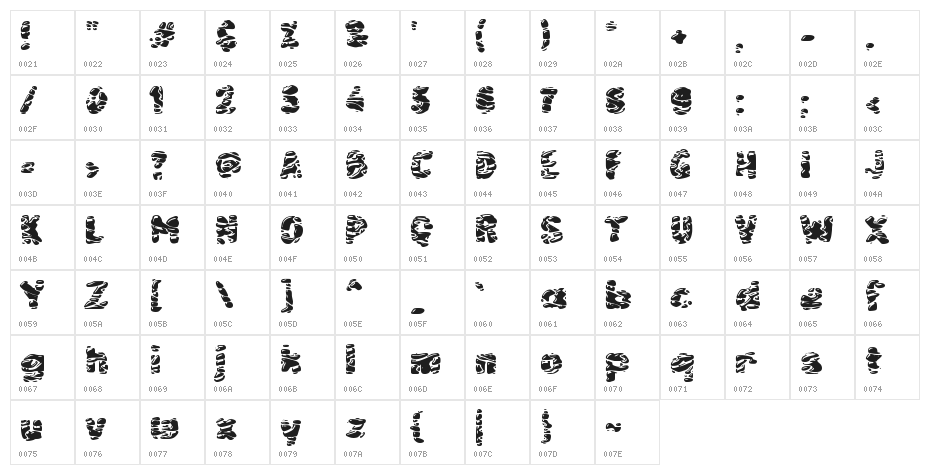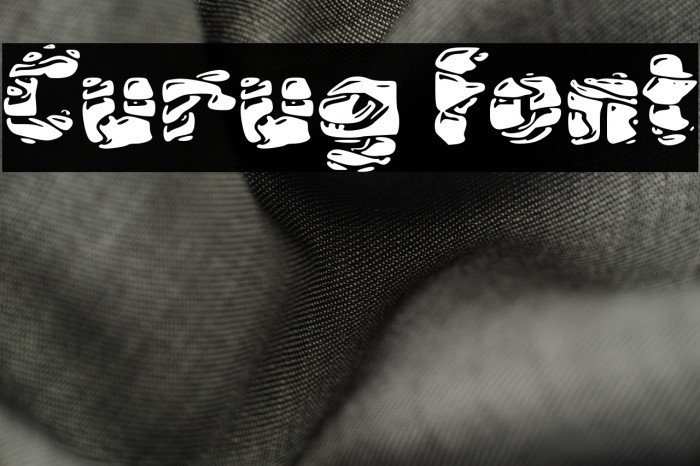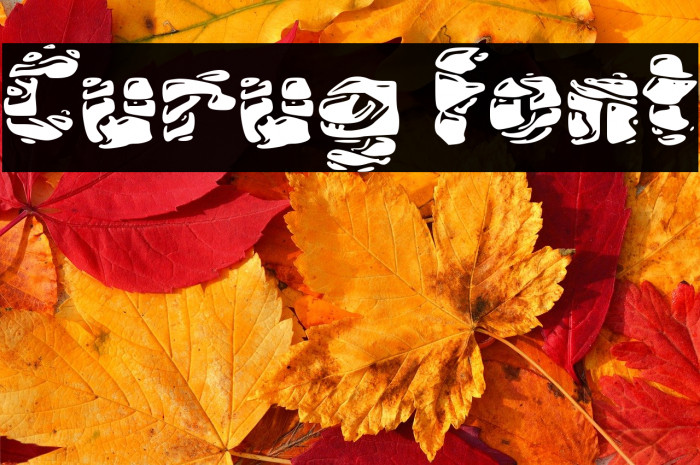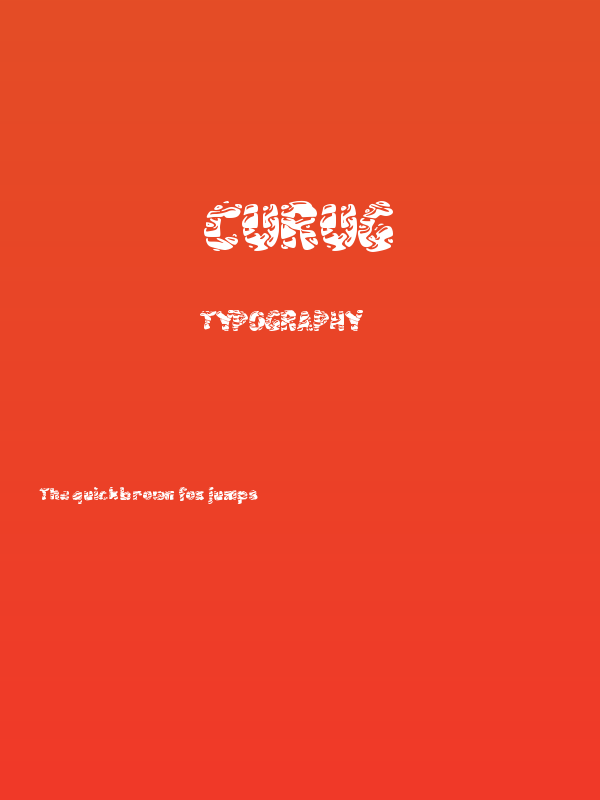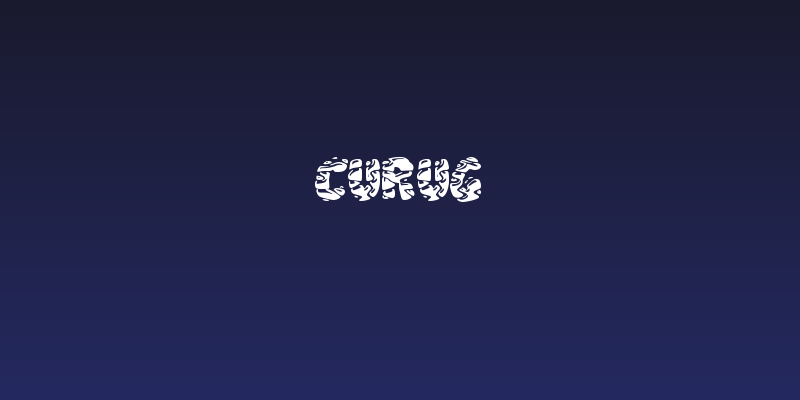
Curug Font
Curug Description
This font features a highly decorative and abstract design, reminiscent of liquid or melted forms. Each character is uniquely crafted with irregular shapes and patterns, creating a dynamic and fluid appearance. The bold and artistic style makes it stand out, with each letter appearing as if it is in motion or melting. The font's playful and unconventional design is eye-catching, making it suitable for creative and artistic projects. Its unique form can add a sense of whimsy and creativity to any design, making it ideal for projects that require a bold and distinctive visual impact.
| Use Case | Headlines, Logos, Artistic projects |
| Proposed Projects | Ideal for artistic posters, album covers, creative branding, and unique logo designs. |